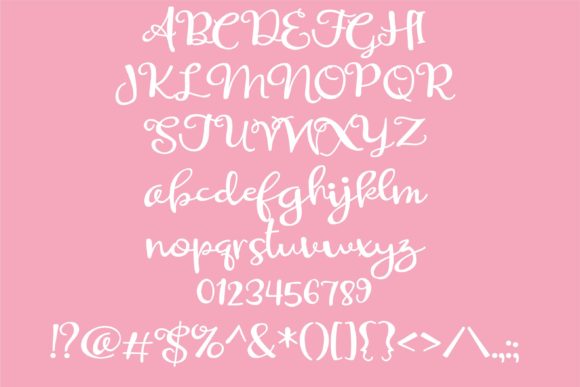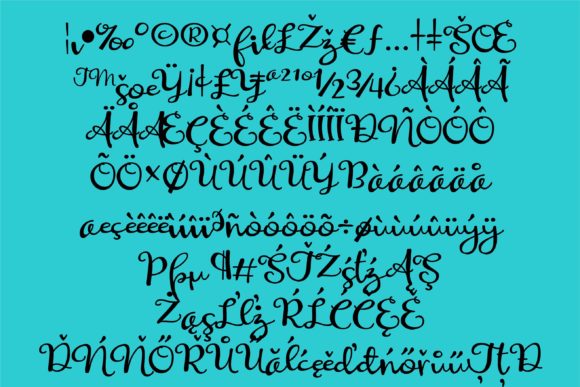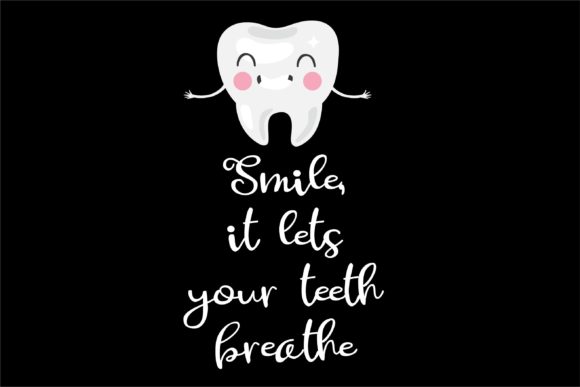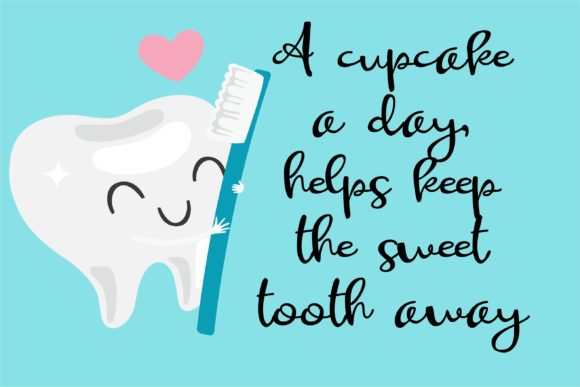
Sweet Tooth Font
About Sweet Tooth Font
Sweet Tooth celebrates the sweeter things in life and is a truly unique script. Fall in love with its gorgeous, authentic vibe and use this crafting script for any design idea!